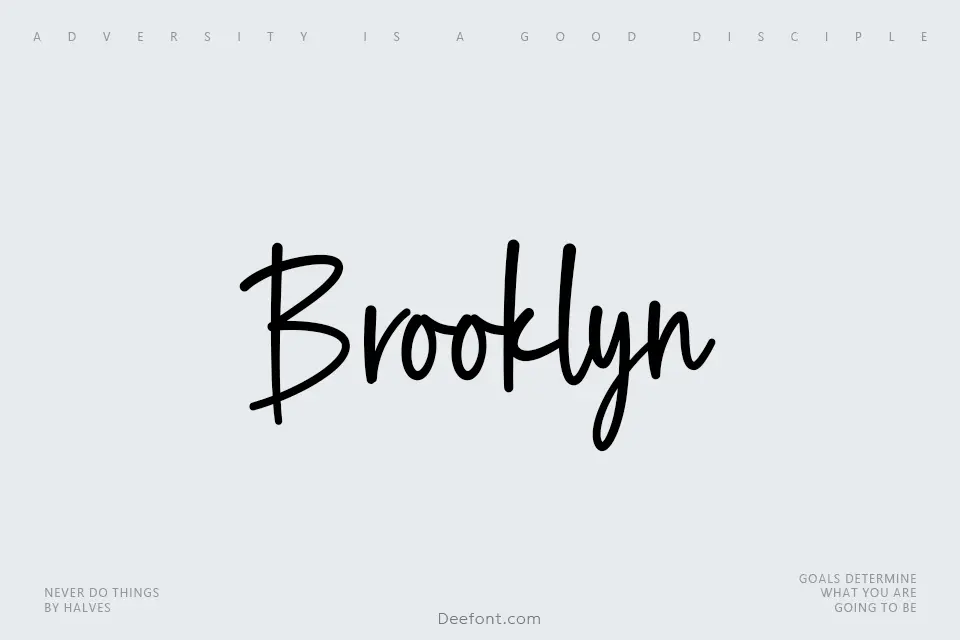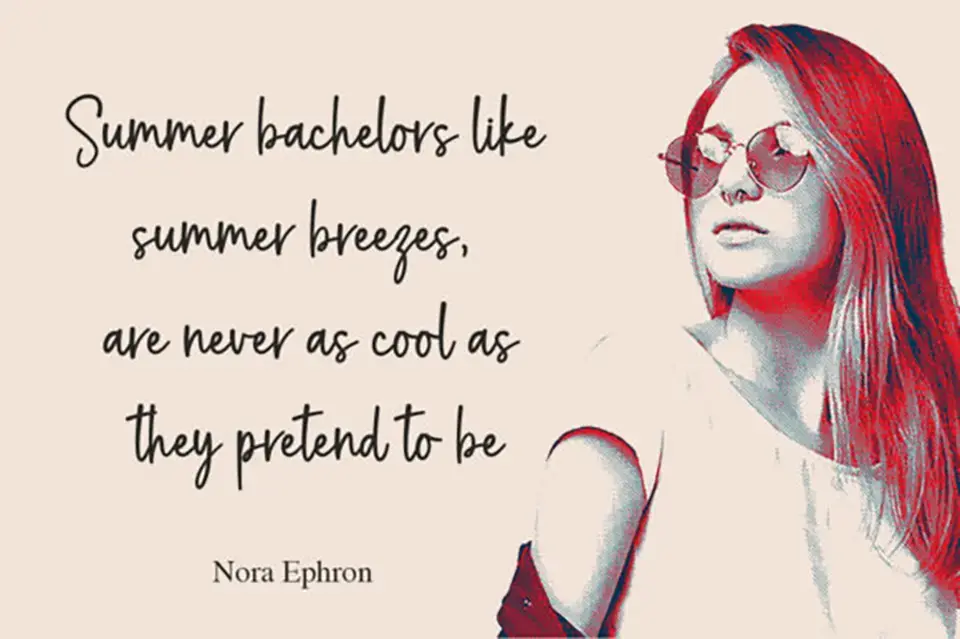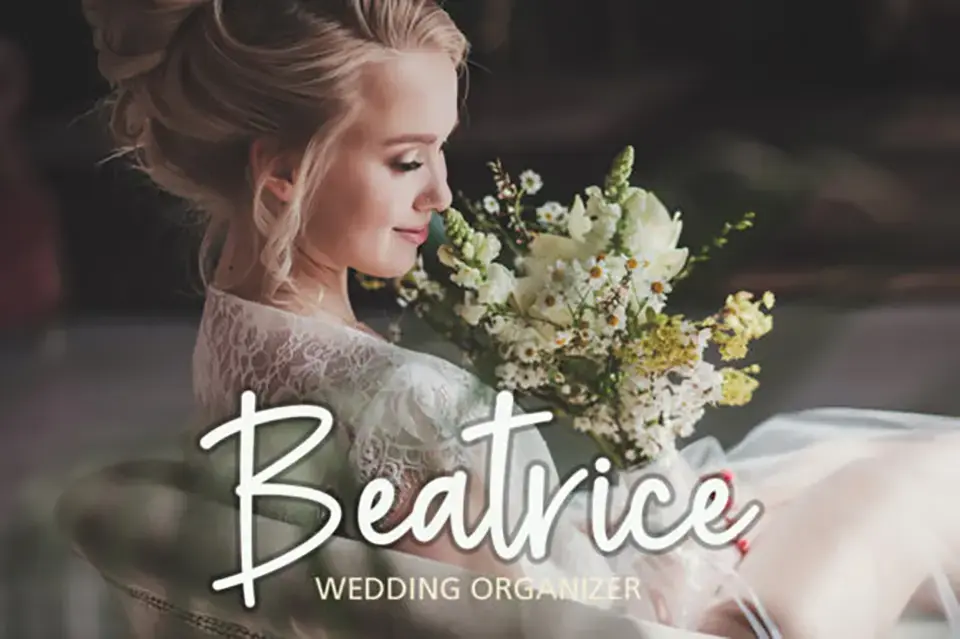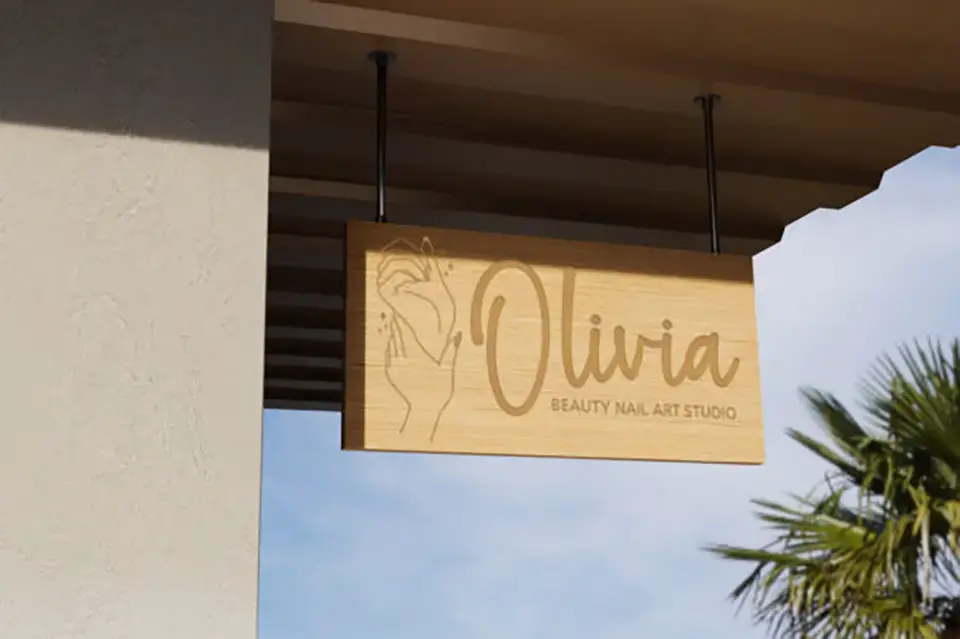
Brooklyn Font
Brooklyn is a dainty, flowing handwritten script font that combines contemporary elegance with organic warmth. Featuring smooth, connected letterforms with natural pen strokes, this typeface excels in wedding invitations, greeting cards, thank you notes, romantic quotes, logo design, branding materials, and personalized stationery. The font’s charming curves and fluid rhythm make it ideal for projects requiring a handcrafted, intimate aesthetic. Perfect for creative professionals seeking to add a personalized, sophisticated touch to their designs.